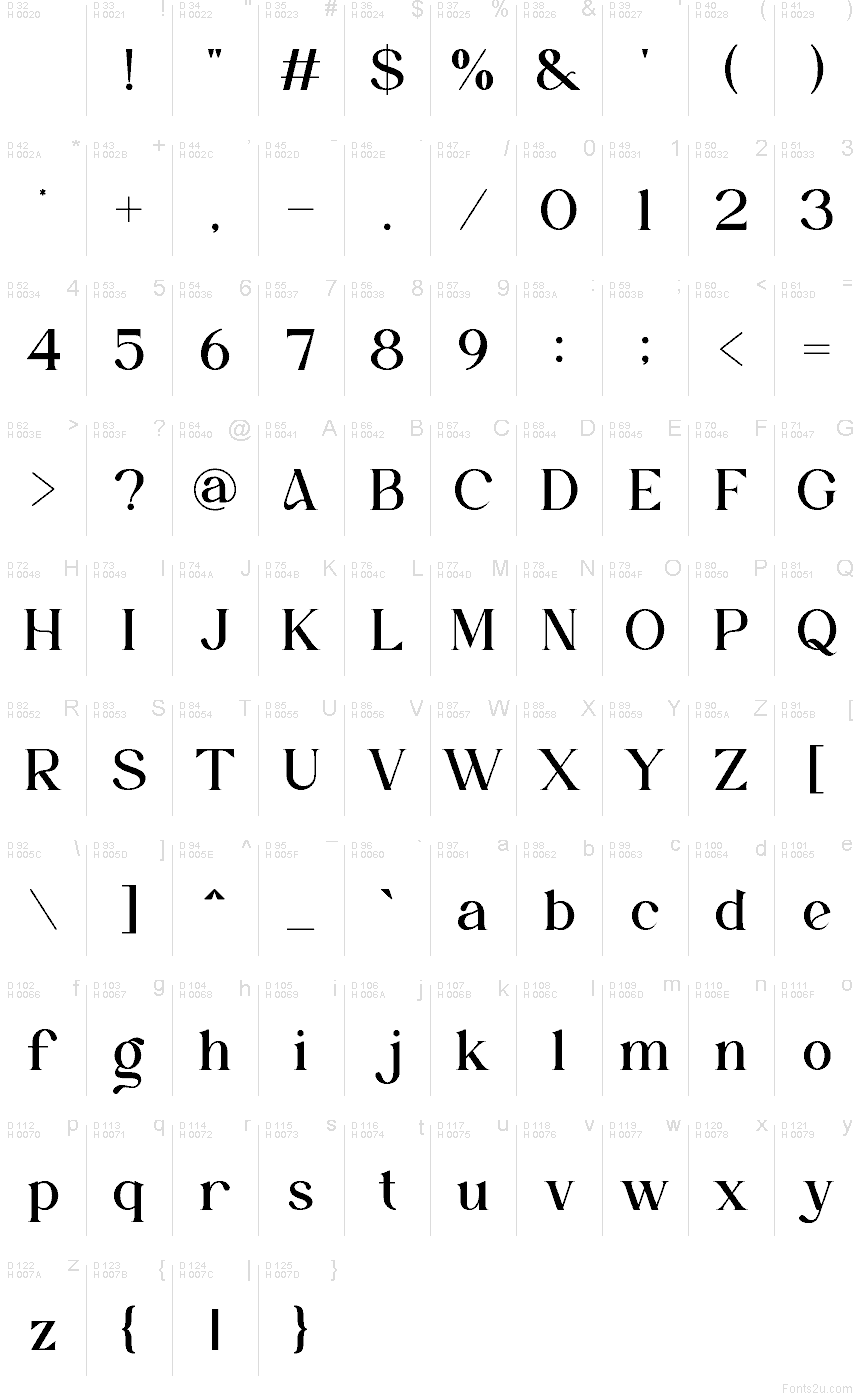
Serohya Regular
Serohya font by ErmediaStudio is a free serif typeface with an inky, sculpted feel that instantly draws the eye. The letters have soft curves and subtly flared strokes that feel hand-inked rather than machined, giving text a refined but human warmth. There’s a confident rhythm in the spacing and shapes, so even a single word can feel like a logo or title all on its own.
Using Serohya, headlines gain a quiet drama that suits beauty brands, editorial layouts, book covers, invitations, and boutique packaging. This free font also works beautifully on hero text for websites and social graphics where you want something stylish without being fussy. Try pairing Serohya with a clean geometric sans for body copy and keep Serohya slightly larger to let those elegant curves breathe.